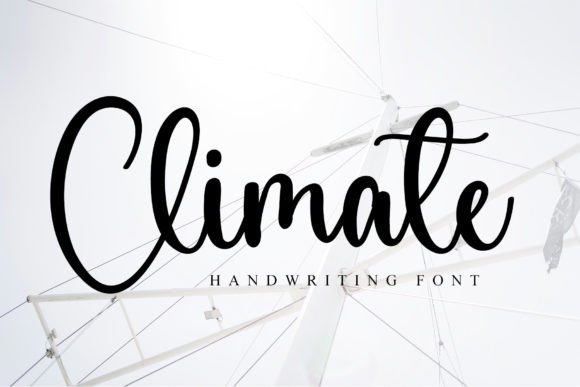
Introducing Climate Font: The Ultimate Holiday Typeface for Your Christmas Projects
Are you looking for a festive and playful typeface to add a touch of holiday magic to your Christmas cards, decorations, and more? Look no further than Climate Font, a whimsical font designed to spread the joy of the season. In this article, we’ll dive into the features and benefits of Climate Font, and explore how you can use it to create stunning holiday projects.
What is Climate Font?
Climate Font is a festive and playful typeface adorned with enchanting swashes, perfect for adding a touch of holiday magic to your Christmas projects. This font is designed to bring a sense of joy and wonder to your designs, making it ideal for Christmas cards, decorations, holiday-themed merchandise, and more.
Key Features of Climate Font
- PUA Encoding: Climate Font is PUA (Private Use Area) encoded, which means you can access all of the amazing glyphs and ligatures with ease. This encoding allows you to use the font’s special characters, such as swashes and ornaments, without any hassle.
- Enchanting Swashes: Climate Font features enchanting swashes that add a touch of magic to your designs. These swashes can be used to create beautiful, eye-catching titles and headings.
- Whimsical Design: Climate Font has a whimsical design that’s perfect for holiday projects. The font’s playful and festive feel will add a touch of joy to your designs.
Benefits of Using Climate Font
- Adds a Touch of Holiday Magic: Climate Font is designed to add a touch of holiday magic to your designs. The font’s festive and playful feel will make your projects stand out.
- Perfect for Christmas Projects: Climate Font is perfect for Christmas projects, including Christmas cards, decorations, holiday-themed merchandise, and more.
- Increases Creativity: Climate Font’s whimsical design and enchanting swashes will inspire your creativity and help you come up with unique and eye-catching designs.
Tips and Tricks for Using Climate Font
- Experiment with Different Font Sizes: Climate Font looks great in a variety of font sizes. Experiment with different sizes to find the perfect fit for your project.
- Combine with Other Fonts: Climate Font can be combined with other fonts to create a unique and eye-catching design.
- Use the Font’s Special Characters: Climate Font’s special characters, such as swashes and ligatures, can add a touch of magic to your designs.
- Make it Your Own: Don’t be afraid to get creative and make Climate Font your own. Experiment with different colors, textures, and patterns to create a unique design.
Climate Font is a festive and playful typeface that’s perfect for adding a touch of holiday magic to your Christmas projects. With its enchanting swashes, whimsical design, and PUA encoding, Climate Font is a must-have for anyone looking to create stunning holiday designs. Whether you’re a designer, a DIY enthusiast, or a business owner, Climate Font is the ultimate holiday typeface for your Christmas projects.
- What is Climate Font?
- Climate Font is a festive and playful typeface adorned with enchanting swashes, perfect for adding a touch of holiday magic to your Christmas projects.